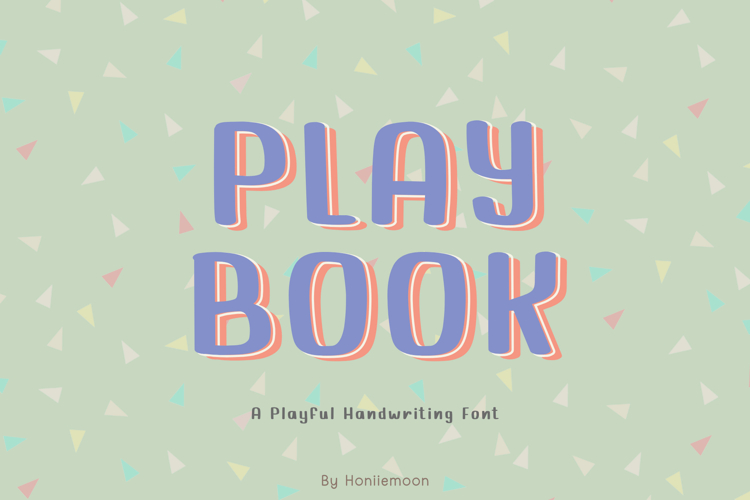
Bring a touch of joy to your projects with Play Book!
Play Book is a charming and playful handwriting font designed to be both fun and highly legible. With its clean lines and whimsical feel, it’s the perfect choice for educators, crafters, and digital creators who want to add a friendly